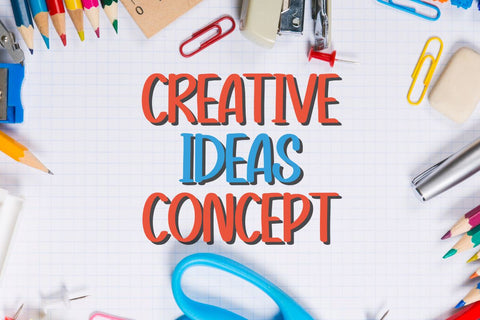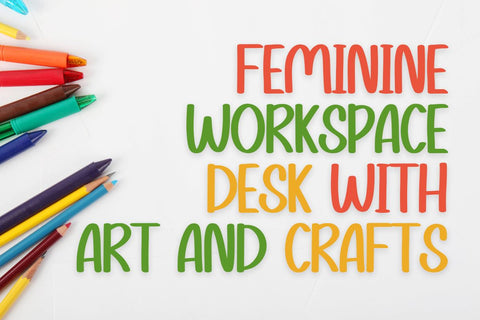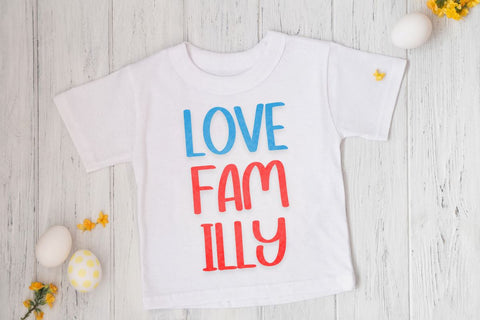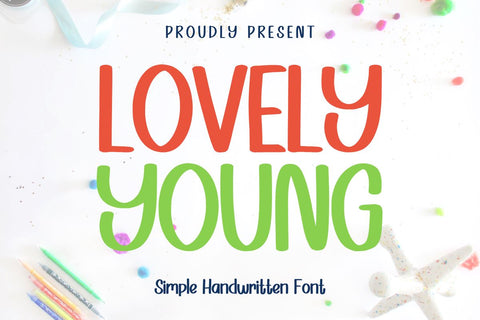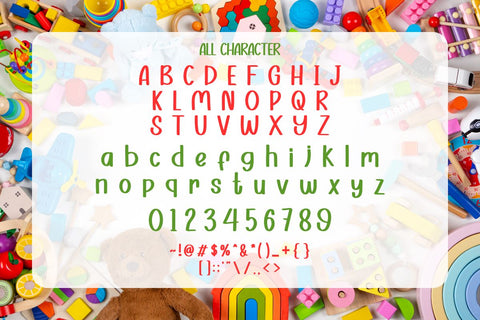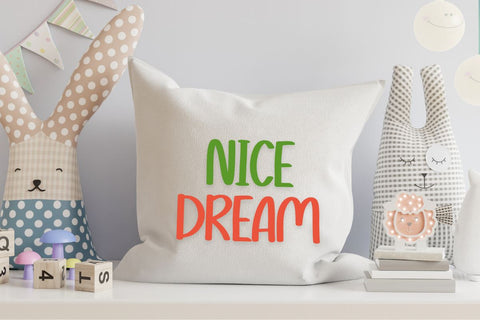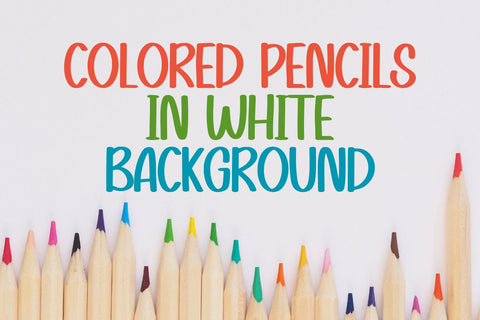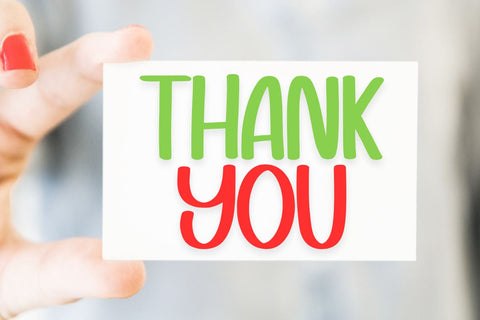
Lovely Young - Simple Handwritten Font
Introducing Lovely Young - Simple Handwritten Font
Embrace the warmth of "Lovely Young," a delightful handwritten font that radiates youthful charm and approachability. This font effortlessly adds a personal touch to your projects.
🖋️ Playful Script: Lovely Young captures the essence of casual, modern handwriting, making it perfect for a wide range of creative applications.
🖋️ Versatile Usage: Ideal for greeting cards, Instagram quotes, scrapbooking, DIY projects, and personal branding. Infuse your work with an authentic, handwritten feel.
🖋️ Crafted for Creativity: Lovely Young's whimsical script offers an organic, personal touch to your messages and designs.
🖋️ Easy to Customize: Adjust the lettering and spacing to suit your unique style and creative vision.
Elevate your creative projects with "Lovely Young - Simple Handwritten Font." Whether you're designing for print or digital media, this font adds a delightful, personal flair.